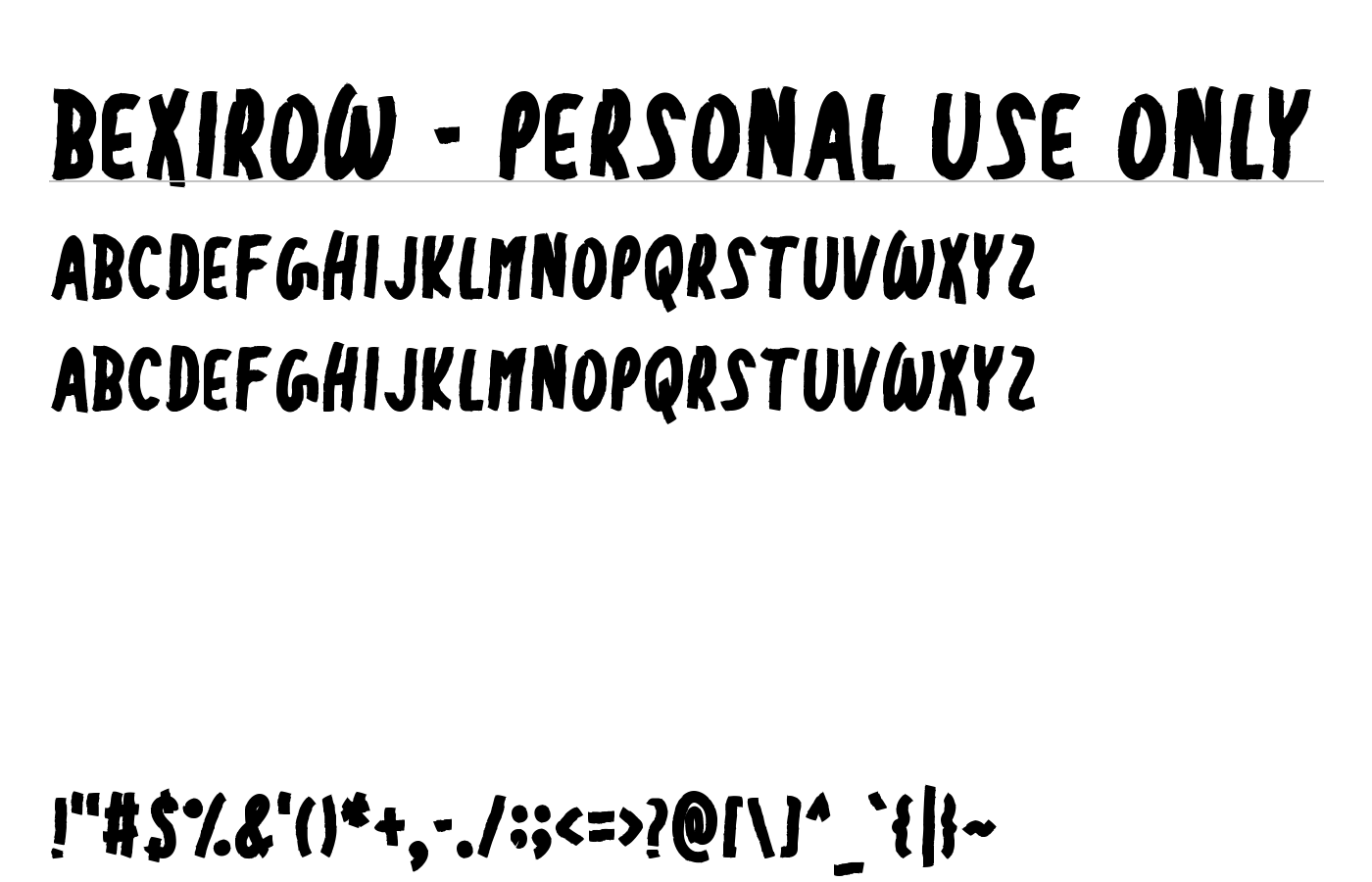
Bexirow is a bold, hand-drawn sans serif font with an energetic and playful personality. Its irregular stroke texture and slightly condensed letterforms give it a casual, expressive vibe perfect for creative projects, posters, and informal branding. This font works well where a lively, personable touch is needed to grab attention and convey friendliness.
Bexirow - Personal Use Only Font
About Bexirow - Personal Use Only Font